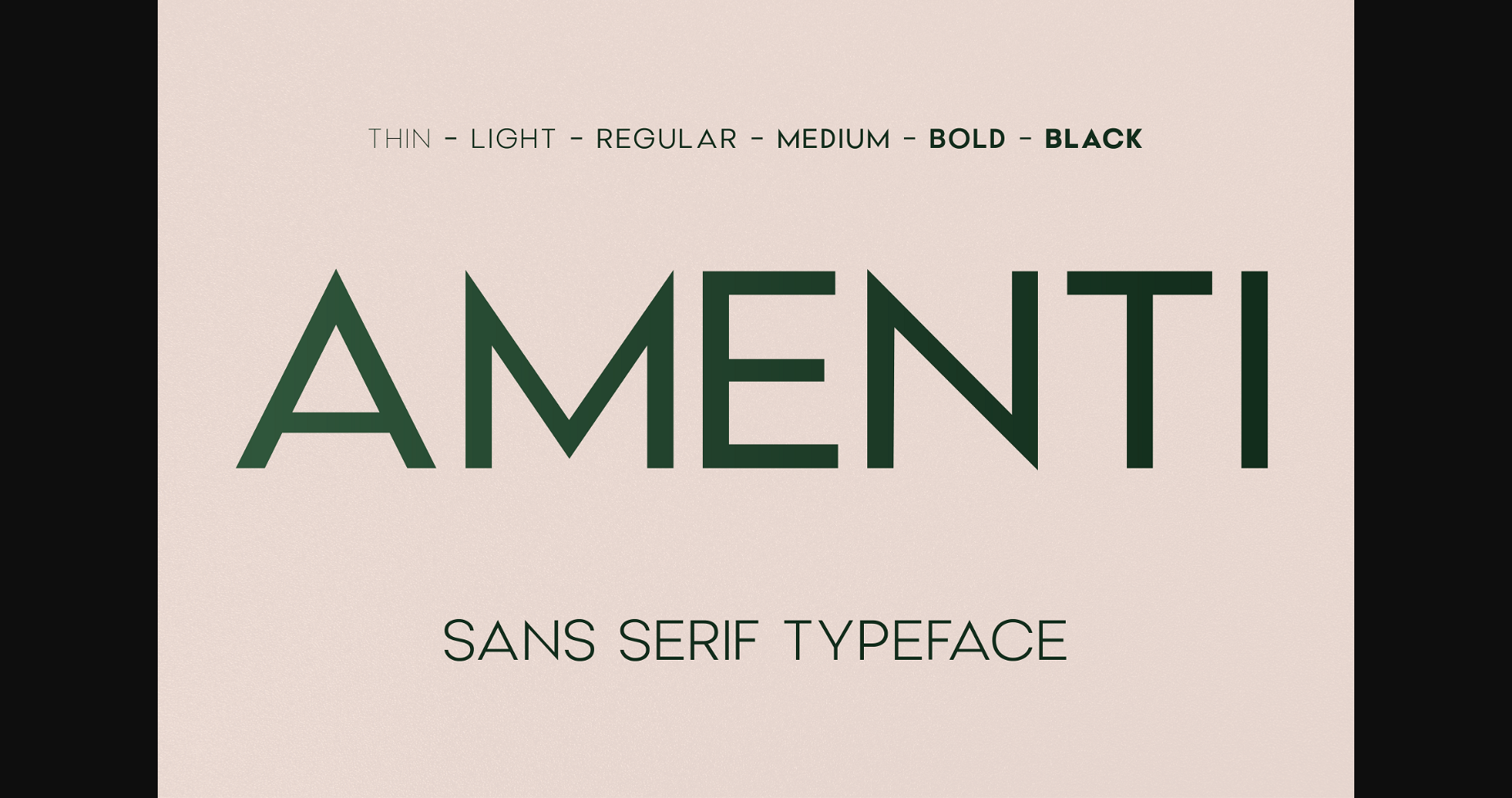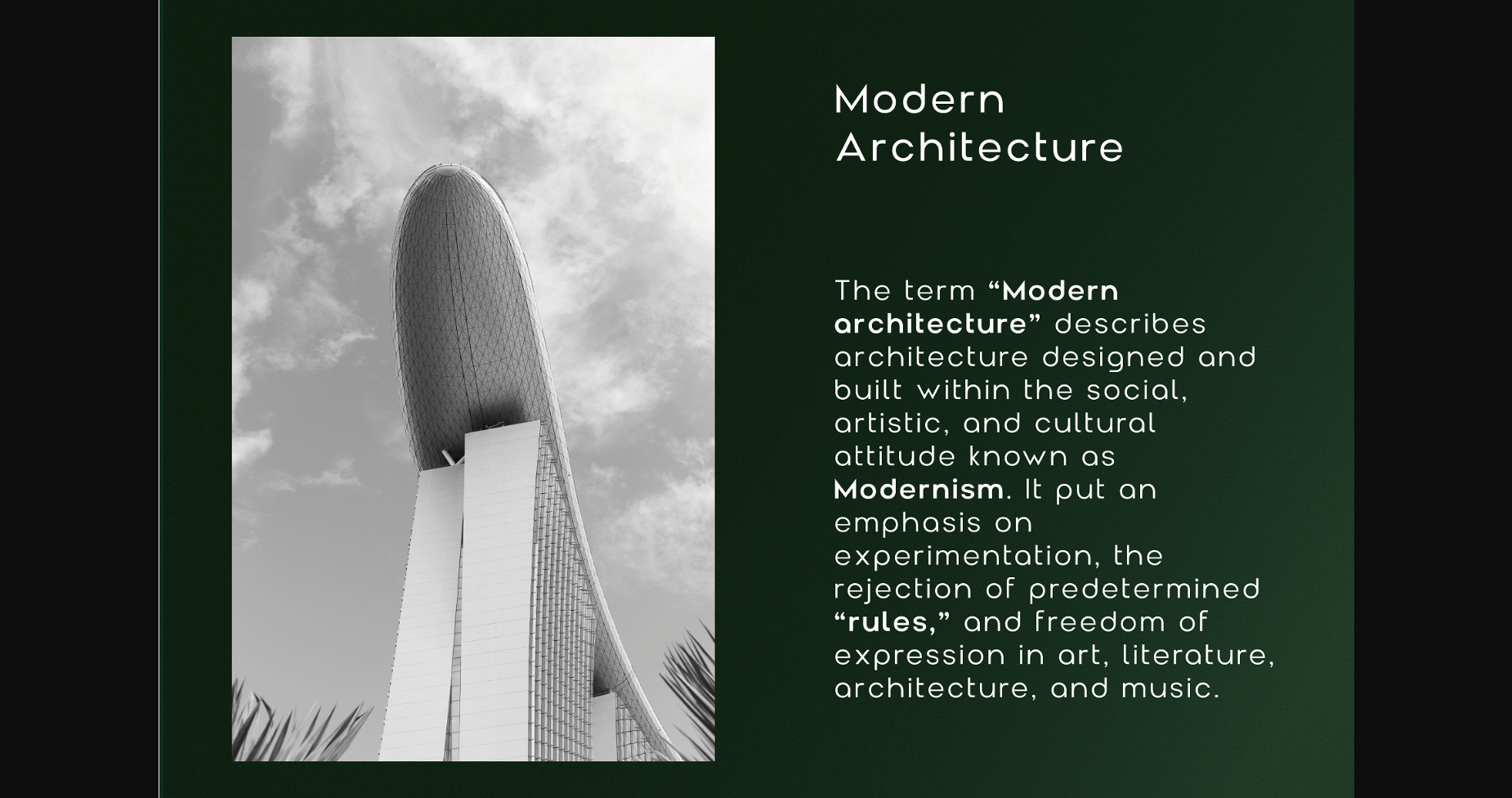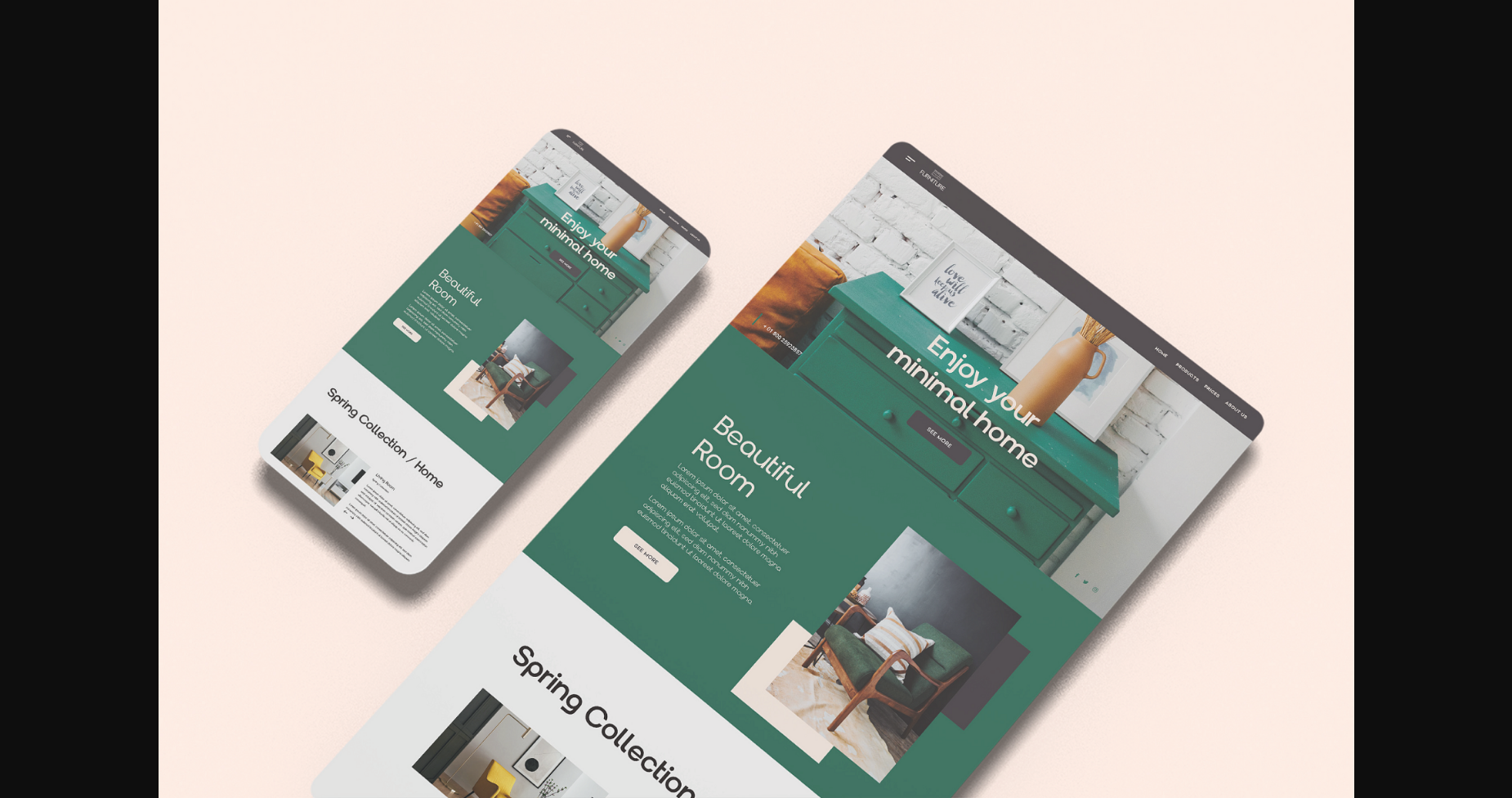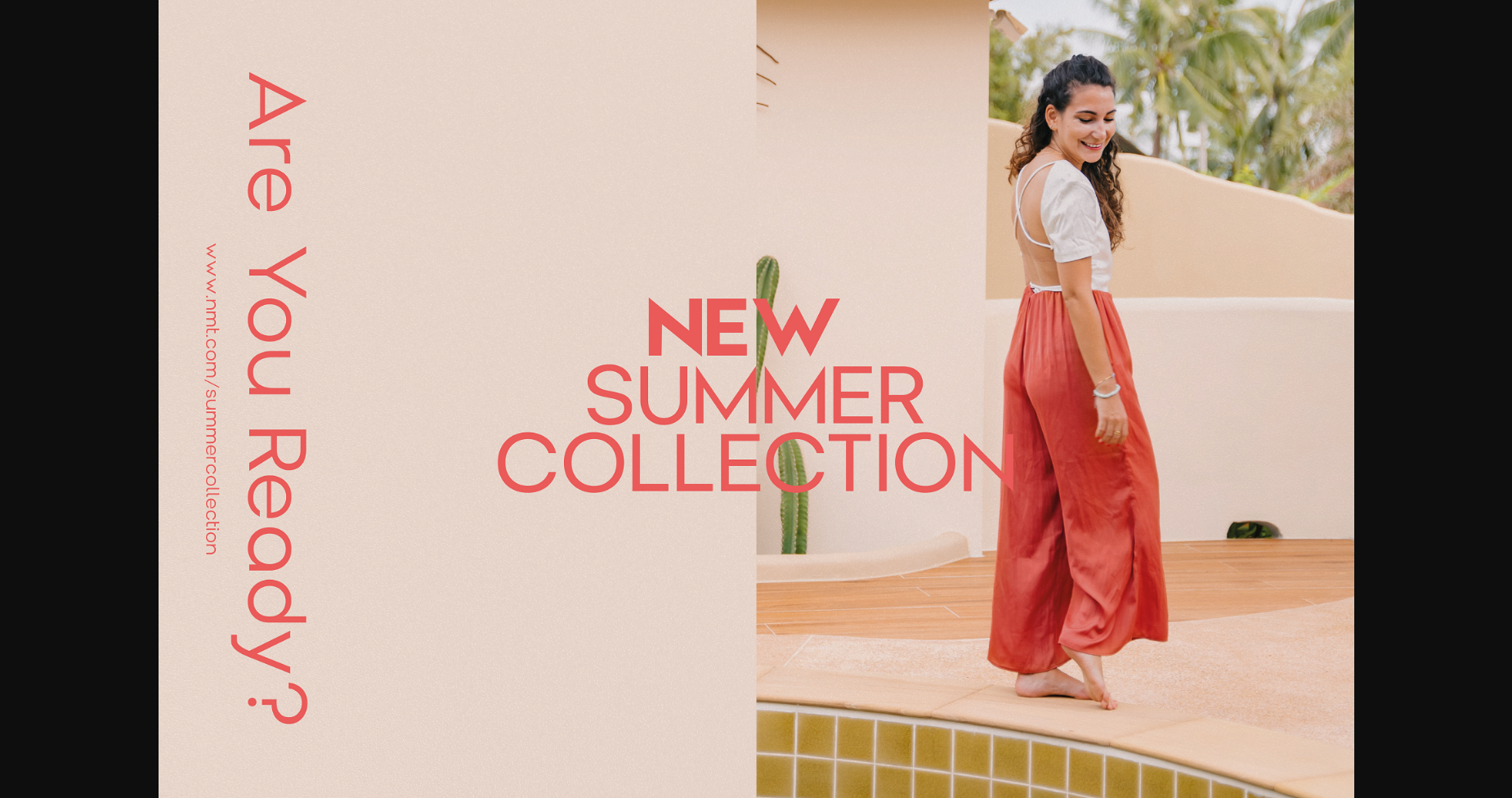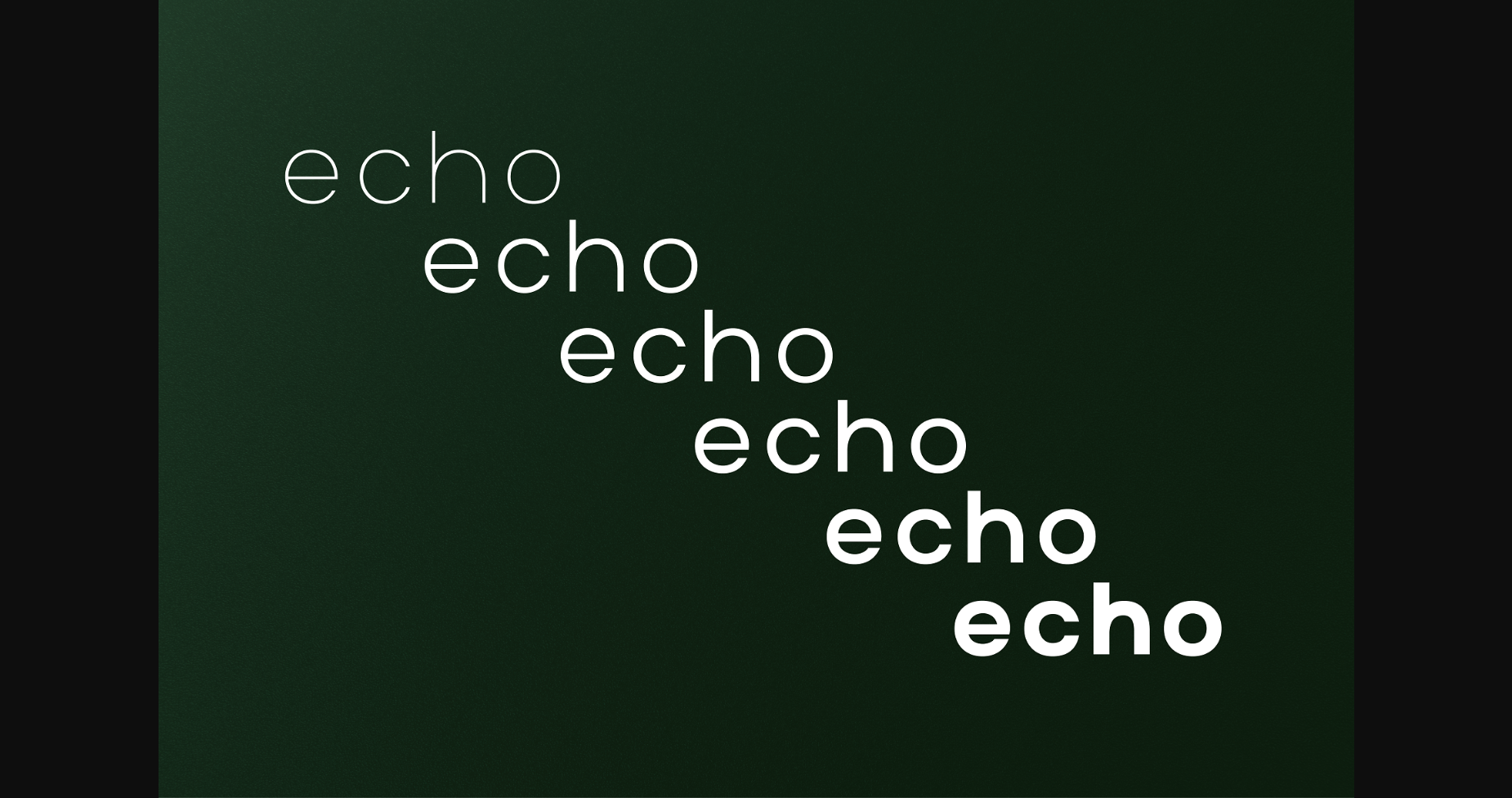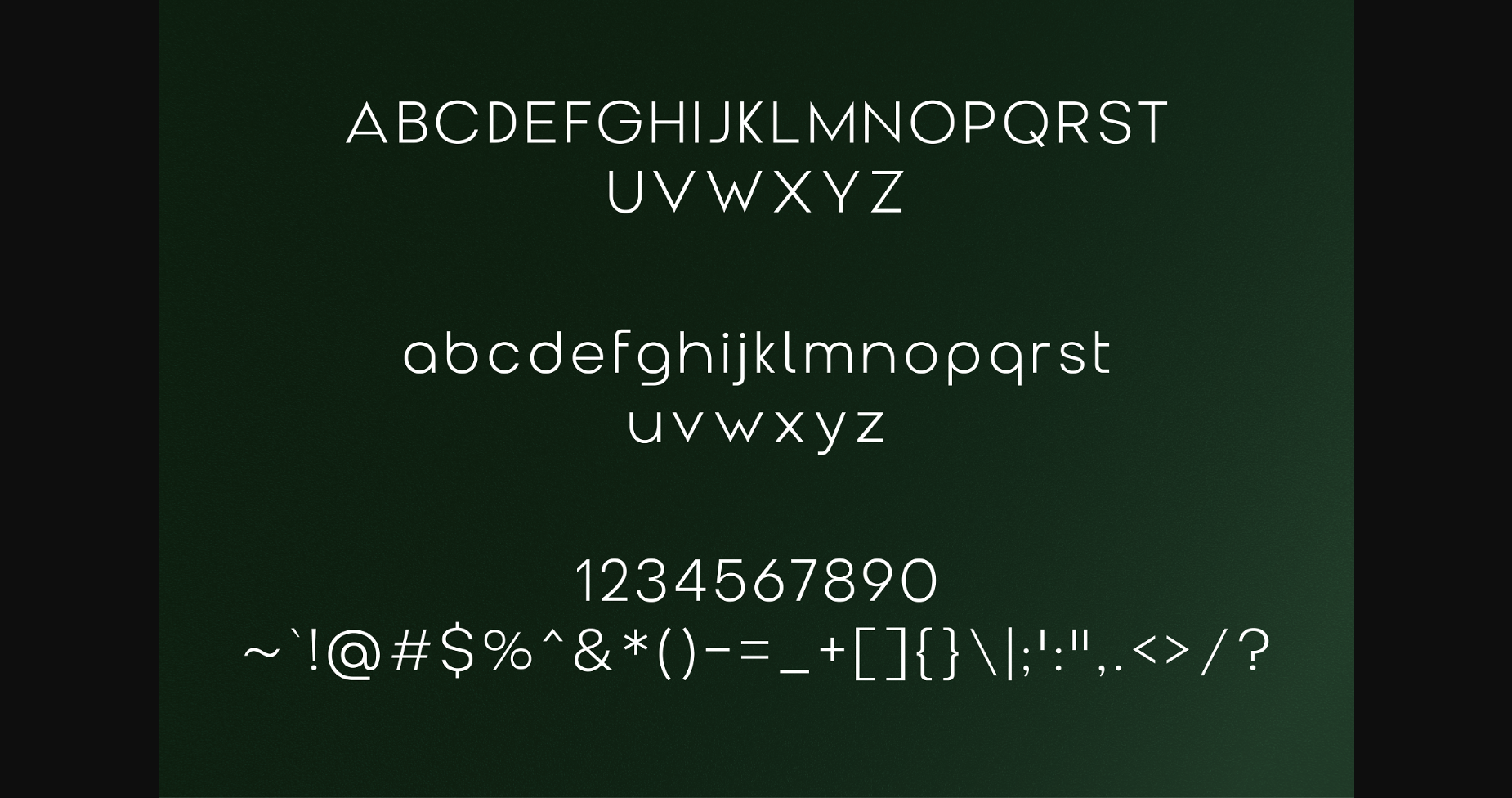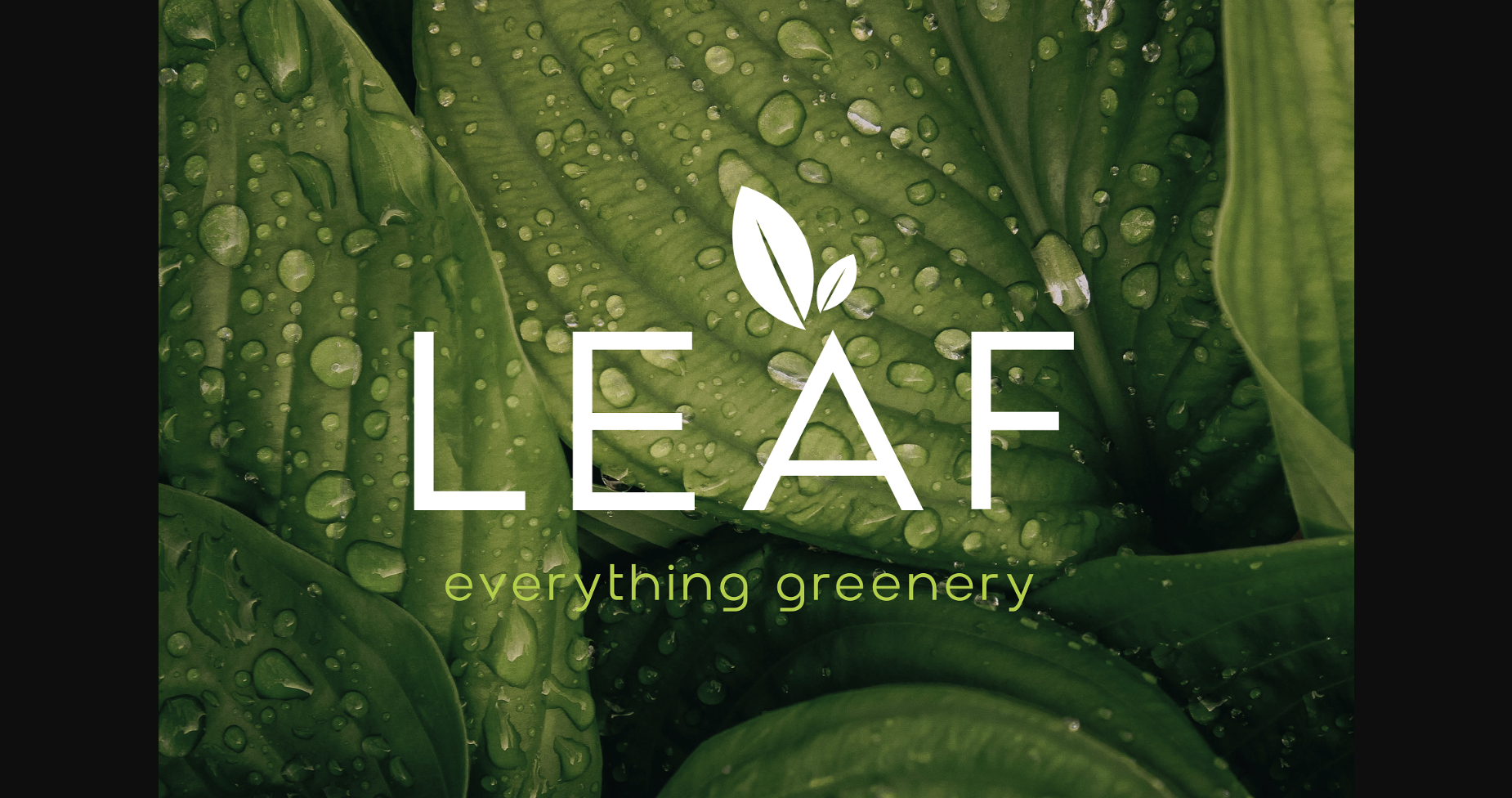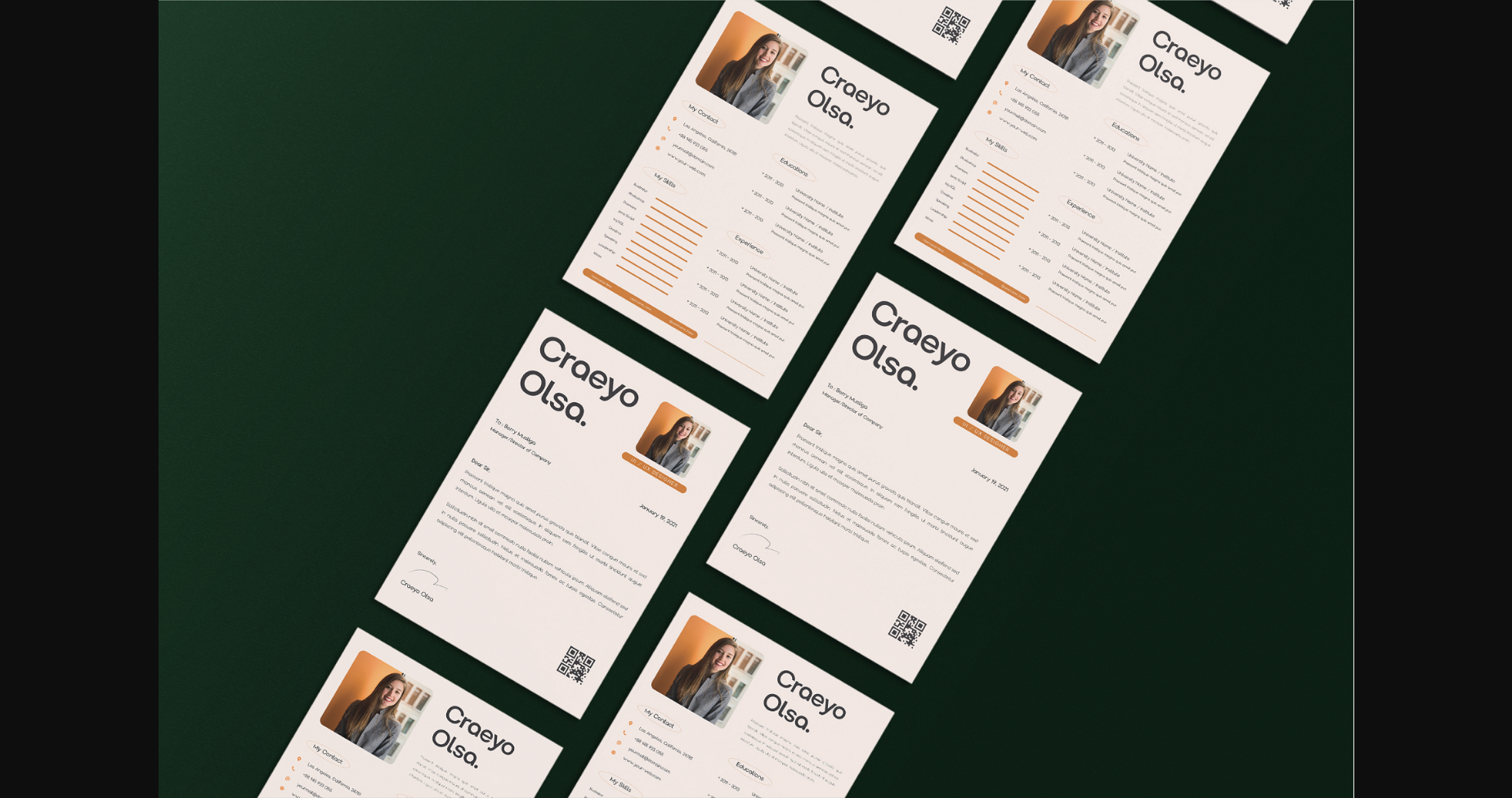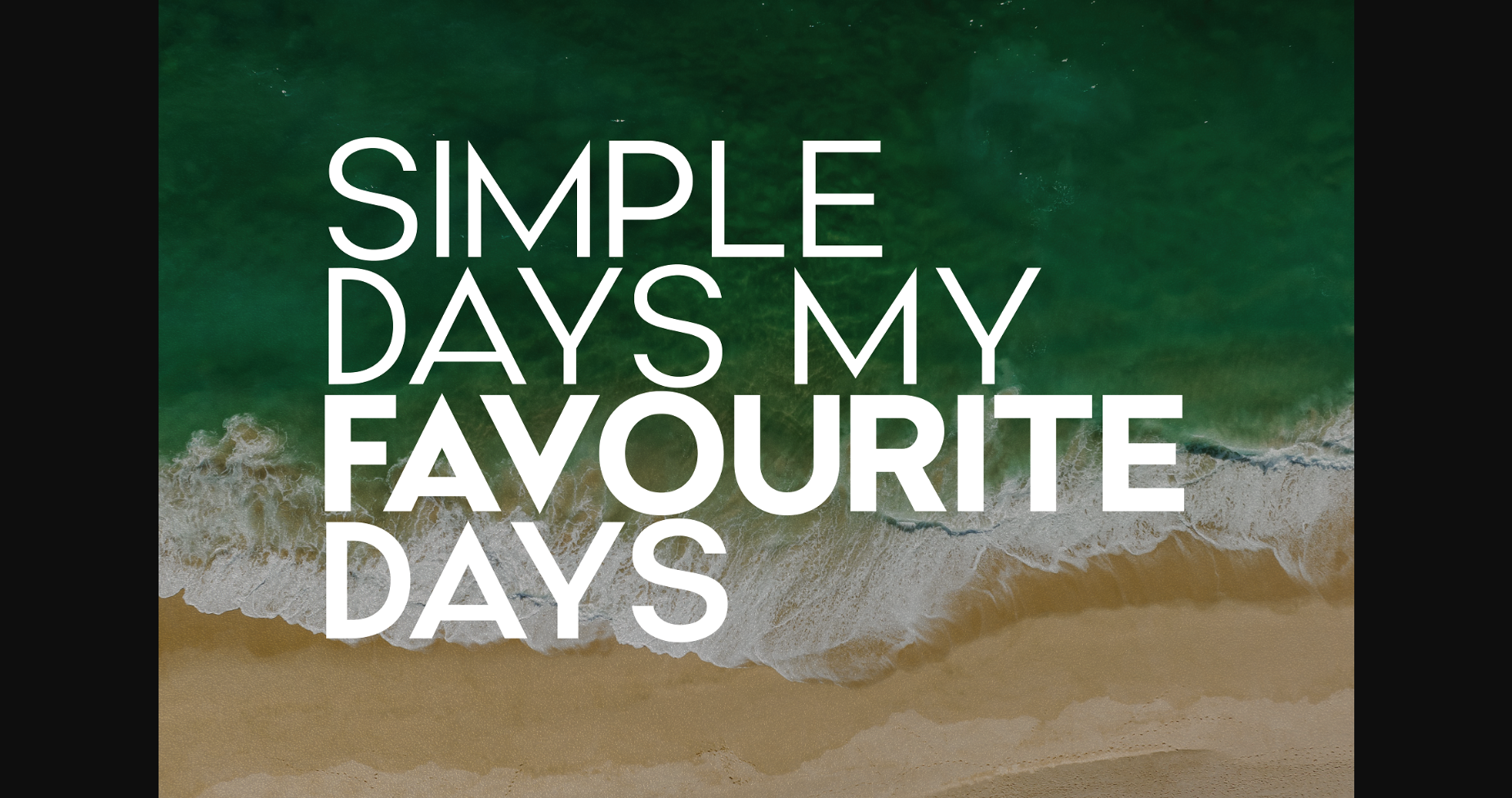
Amenti Font
About Amenti Font
Introducing Amenti, the epitome of modernity and sophistication. With its clean lines and graceful curves, this font is a sight to behold. Amenti comes in six different weights, each as breathtaking as the last. Its timeless beauty and stylish elegance will leave a lasting impression on anyone who encounters it. Whether used for a branding project, a website, or a printed design, Amenti will elevate any composition to new heights.